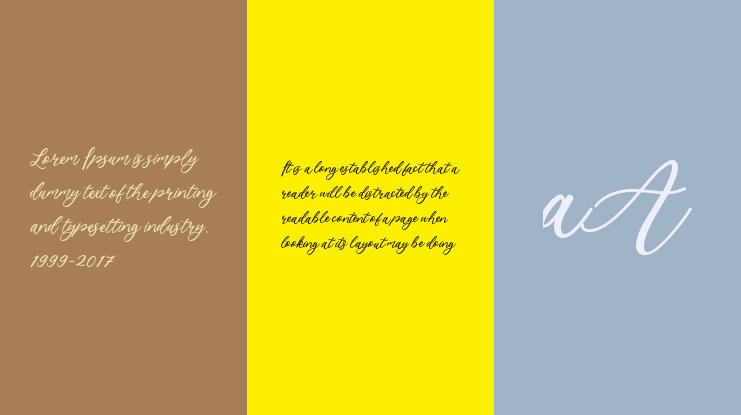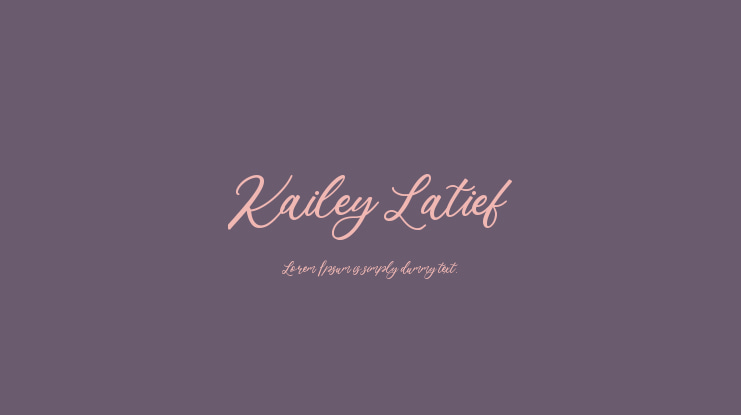
Kailey Latief Font
Proudly Present, Kailey Latief Font.
Kailey Latief is a Modern Calligraphy Font.
Kailey Latief is perfect for product packaging, branding project, magazine, social media, weddings, or just used to express words above the background.